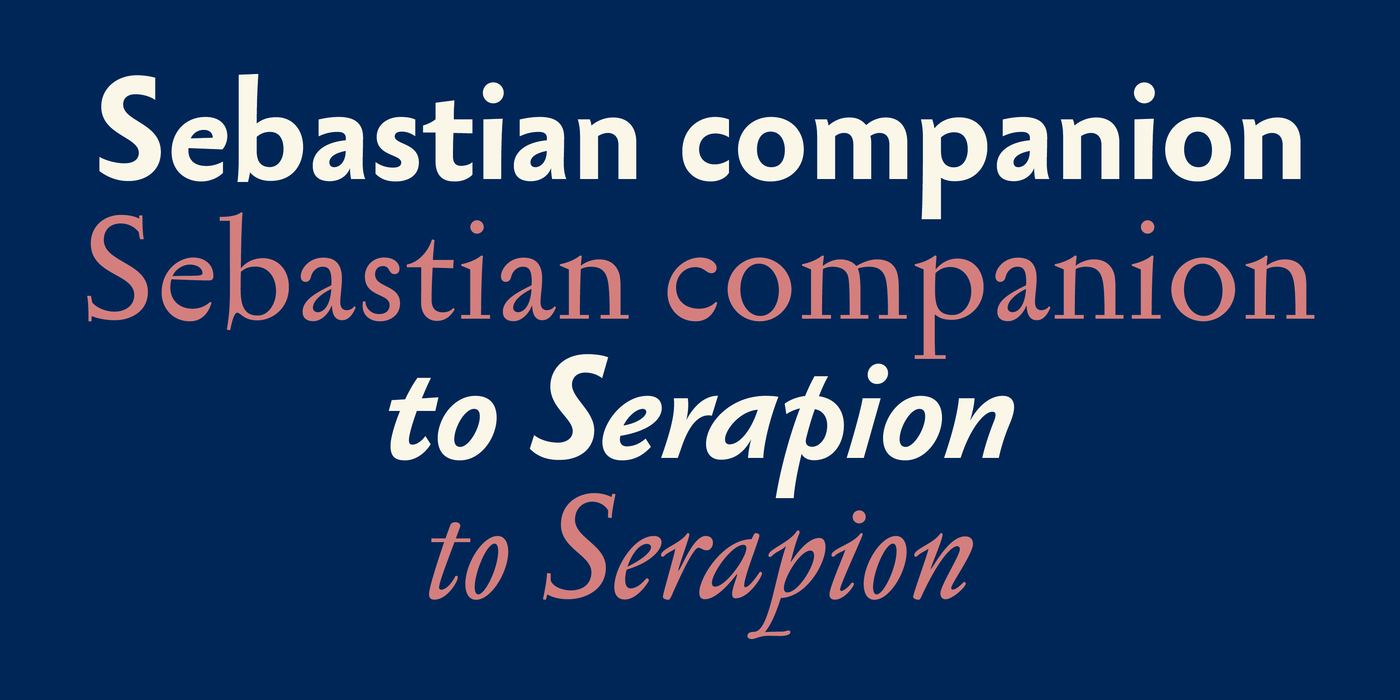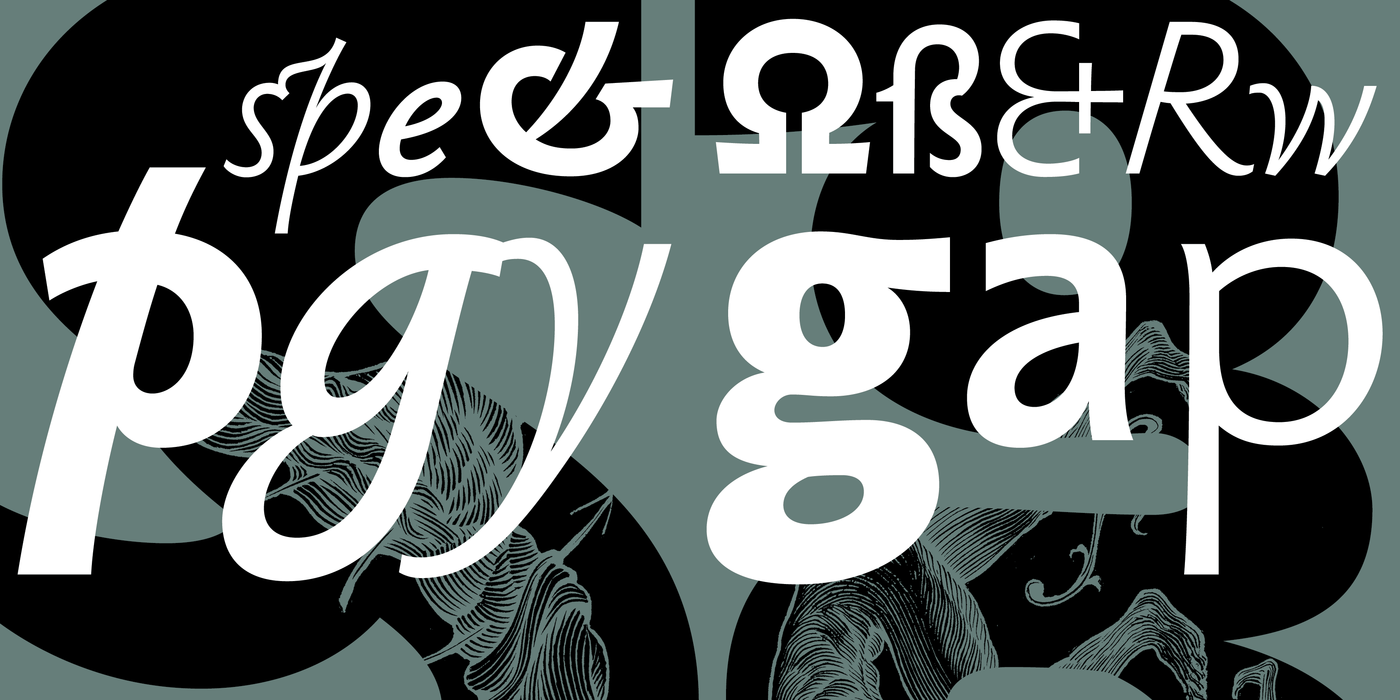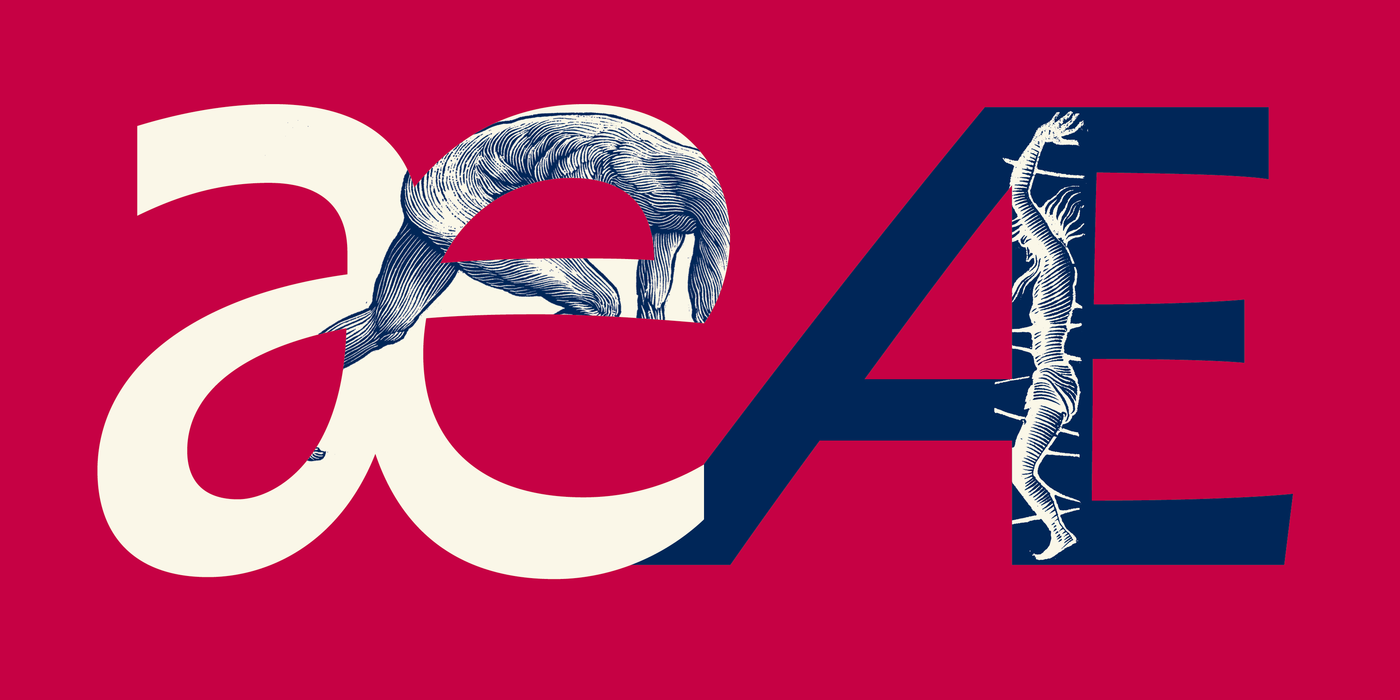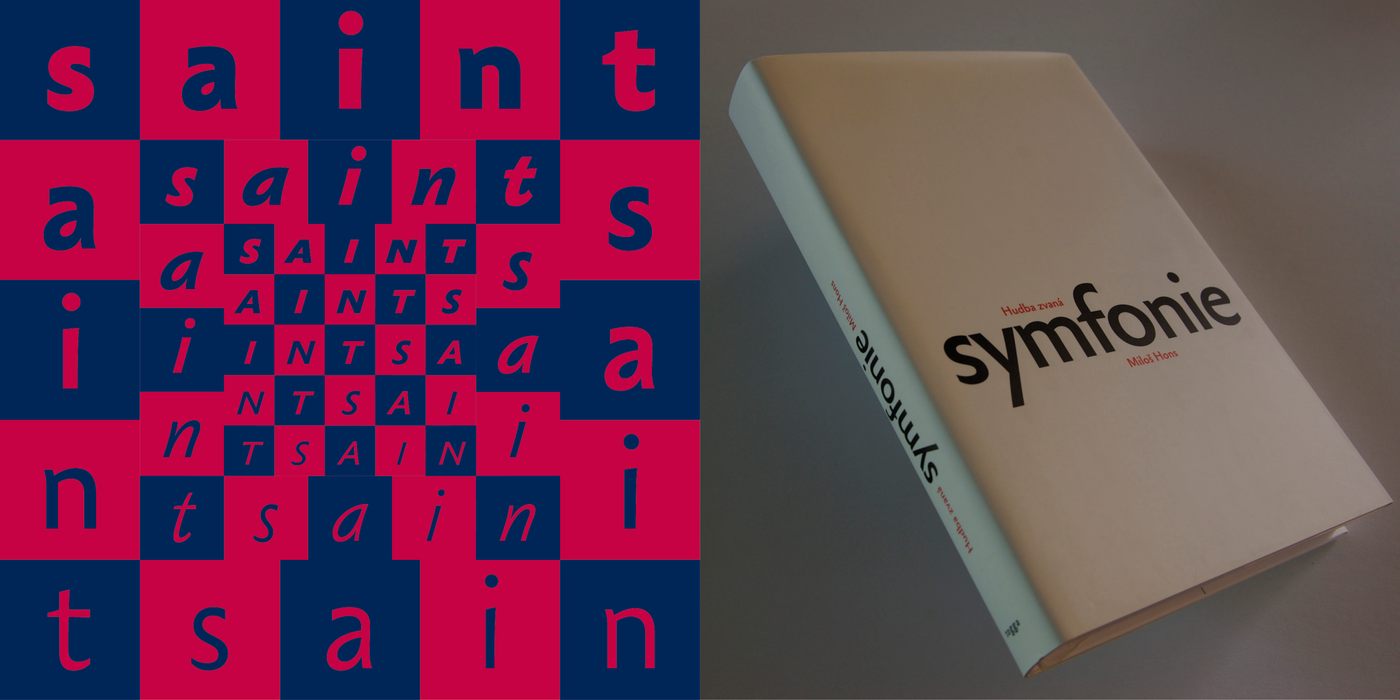
Sebastian
by František Štorm
Another confession of love for baroque typography. Sans-serif typefaces compensate for their basic handicap – an absence of serifs – with a softening modulation typical of roman typefaces. Grotesques often inherit a hypertrophy of the x-height, which is very efficient, but not very beautiful. They are like dogs with fat bodies and short legs. Why do we love old Garamonds? Beside beautifully modelled details, they possess aspect-ratios of parts within characters that timelessly and beauteously parallel the anatomy of the human body. Proportions of thighs, arms or legs have their universal rules, but cannot be measured by pixels and millimetres. These sometimes produce almost unnoticeable inner tensions, perceptible only very slowly, after a period of living with the type. Serifed typefaces are open to many possibilities in this regard; when a character is mounted on its edges with serifs, what is happening in between is more freely up to the designer. In the case of grotesques, everything is visible; the shape of the letter must exist in absolute nakedness and total simplicity, and must somehow also be spirited and original.
Bezpatkové písmo vyrovnává svůj základní nedostatek – absenci patek – tím, že v monolineárním schématu uplatňuje změkčující modelaci antikvy. Grotesky jsou dědičně zatíženy také hypertrofií střední výšky minusek,což je velmi praktické,ale nepěkné. Je to jako pejsek s tlustým tělem a krátkýma nohama. Proč milujeme staré Garamondy? Kromě nádherné modelace je to také poměr velikostí jednotlivých částí liter, kdy písmo ve své nadčasové leposti tvoří paralelu k anatomii lidského těla. Vzájemné poměry okončetin mají svá pevná pravidla, avšak nedají se měřit na pixely a milimetry, někdy jsou to nepostřehnutelná vnitřní pnutí, vnímaná jen podvědomě a pomalu, po delším čase. Patková písma mají v tomto bodě mnohem bohatší paletu možností, znak se jednoduše ukotví do plochy patkami, a co se děje uvnitř kresby je naše věc. U grotesků je všechno vidět, tvar litery musí obstát ve své úplné nahotě a sumární jednoduchosti a přece musí být trochu rafinovaný a originelní.